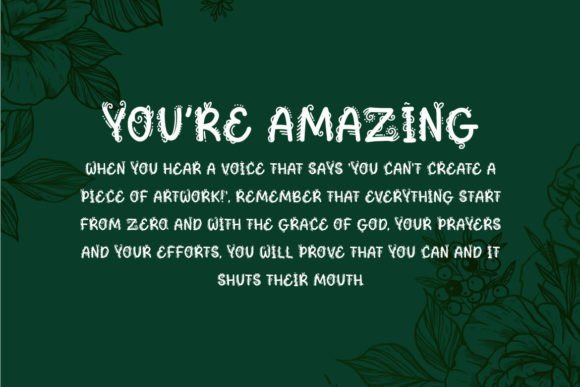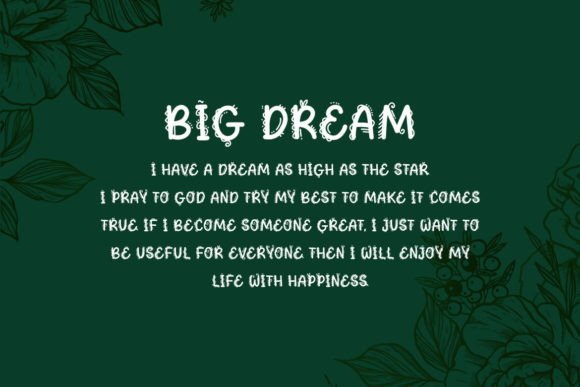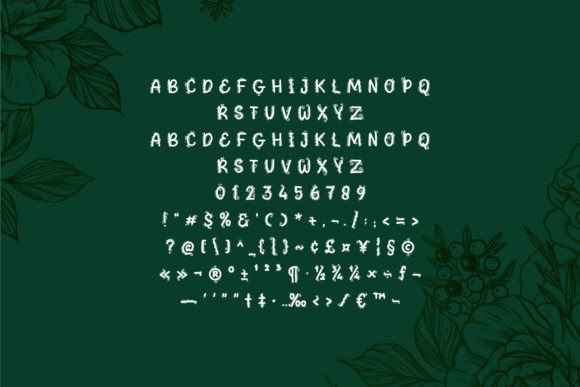
Introducing Deconator: The Ultimate Decorative Display Font for Elevating Design Projects
Are you tired of using the same old fonts for your design projects? Do you want to add a touch of elegance and sophistication to your creations? Look no further than Deconator, a breathtaking decorative display font that is sure to take your designs to new heights. With its intricate details and fluid strokes, Deconator is the perfect choice for designers and crafters looking to add a touch of luxury to their work.
The Beauty of Deconator
Crafted with precision and care, each letter of Deconator exudes a sense of grace and beauty. Its elegant and intricate details are sure to captivate the viewer’s attention from the very first glance. The font’s fluid strokes and delicate curves create a sense of movement and rhythm, making it perfect for a variety of design projects, from wedding invitations and branding materials to decorative signage and more.
One of the best things about Deconator is its versatility. This decorative display font can be used for a wide range of design projects, including:
- Decorative signage and posters
- Packaging and labeling
Whether you’re a professional designer or a crafter looking to add a personal touch to your work, Deconator is the perfect choice. Its elegant and sophisticated design makes it suitable for a variety of industries and applications, from luxury brands and high-end events to handmade crafts and DIY projects.
Why Choose Deconator?
So why choose Deconator over other decorative display fonts? Here are just a few reasons:
- Unique and eye-catching design: Deconator’s intricate details and fluid strokes make it stand out from other fonts.
- Versatile and adaptable: This font can be used for a wide range of design projects and applications.
- Elegant and sophisticated: Deconator adds a touch of luxury and refinement to any design project.